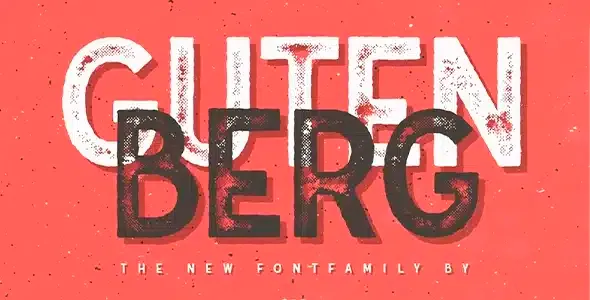
Gutenberg Font Family Premium
A sincere tribute to Johannes Gutenberg, who introduced the printing press to Europe with his mechanical printing technique using movable type. Undoubtedly one of the most important inventions of the second millennium.
Gutenberg is a sans serif font that features sketched edges with irregular outline imperfections to simulate transferred ink.
This font family includes 296 glyphs and multilingual support, also comprising irregular and clean regular styles with corresponding true italics.